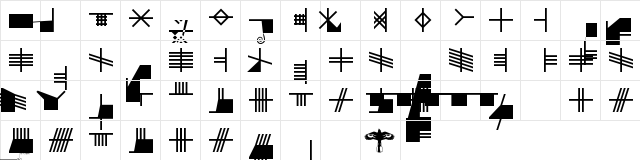
Beth-Luis-Fearn Regular
Design Context for Beth-Luis-Fearn Typeface
Beth-Luis-Fearn is a composed and adaptable typeface that performs quietly and consistently across a wide range of design contexts.